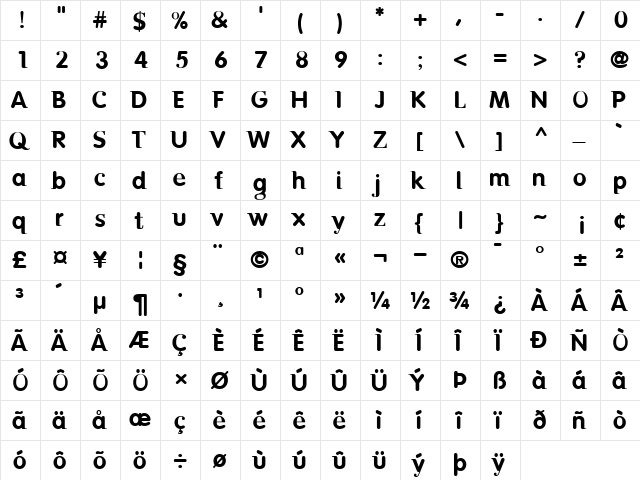
BirthRiot Regular
Design Context for BirthRiot Typeface
BirthRiot is a composed and adaptable typeface that performs quietly and consistently across a wide range of design contexts.
Pro Tip: Pair BirthRiot with a font of contrasting weight or personality to build a more expressive typographic hierarchy.